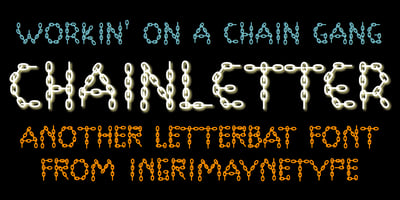
ChainLetter
ChainLetter font
ChainLetter Font Family was designed by Robert Schenk and published by Ingrimayne Type. ChainLetter contains 2 styles and family package options. In the two ChainLetter fonts all characters are made from chains links. ChainLetter uses smaller chain links than ChainLetterAlt and as a result is easier to read. Both are caps-only typefaces, but some of the letters on the lower-case keys differ from those on the upper-case keys.